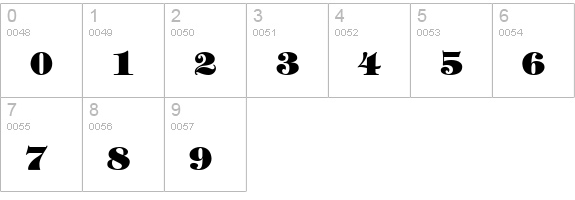
Sophisticate Black SSi Bold is a maximum-weight, dramatic variant in the Sophisticate typeface family \xE2\x80\x94 well suited to maximum-impact headlines, posters, and packaging.
Sophisticate Black SSi Bold font is the epitome of elegance and refinement. With its sleek and polished appearance, this font exudes sophistication and class. Its bold weight adds a touch of confidence and power to any design. Whether used for headlines, logos, or branding materials, Sophisticate Black SSi Bold is sure to make a bold statement. This font's timeless and versatile design makes it suitable for a wide range of projects, from high-end fashion magazines to luxury product packaging. Its clean lines and impeccable spacing create a harmonious and visually pleasing composition. But what truly sets Sophisticate Black SSi Bold font apart is that it is freely available to download at FontsMarket.com. This means that designers and creatives can access this stunning font without any cost, making it an even more valuable asset to their design arsenal. With its effortless blend of sophistication, boldness, and accessibility, Sophisticate Black SSi Bold font is the perfect choice for those seeking to elevate their designs to new heights. Whether used in print or digital media, this font is guaranteed to leave a lasting impression on viewers. So why wait? Visit FontsMarket.com today and download Sophisticate Black SSi Bold font for free. Unleash your creativity and let this font transform your designs into works of art.